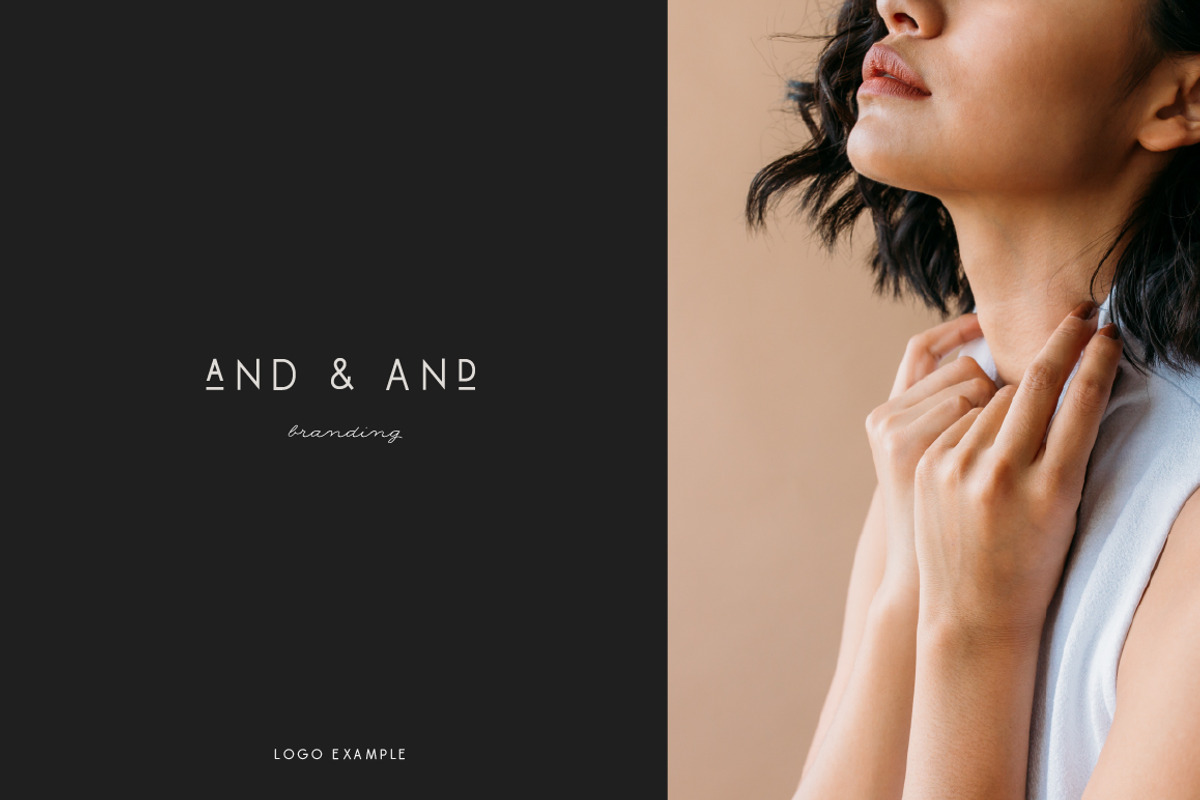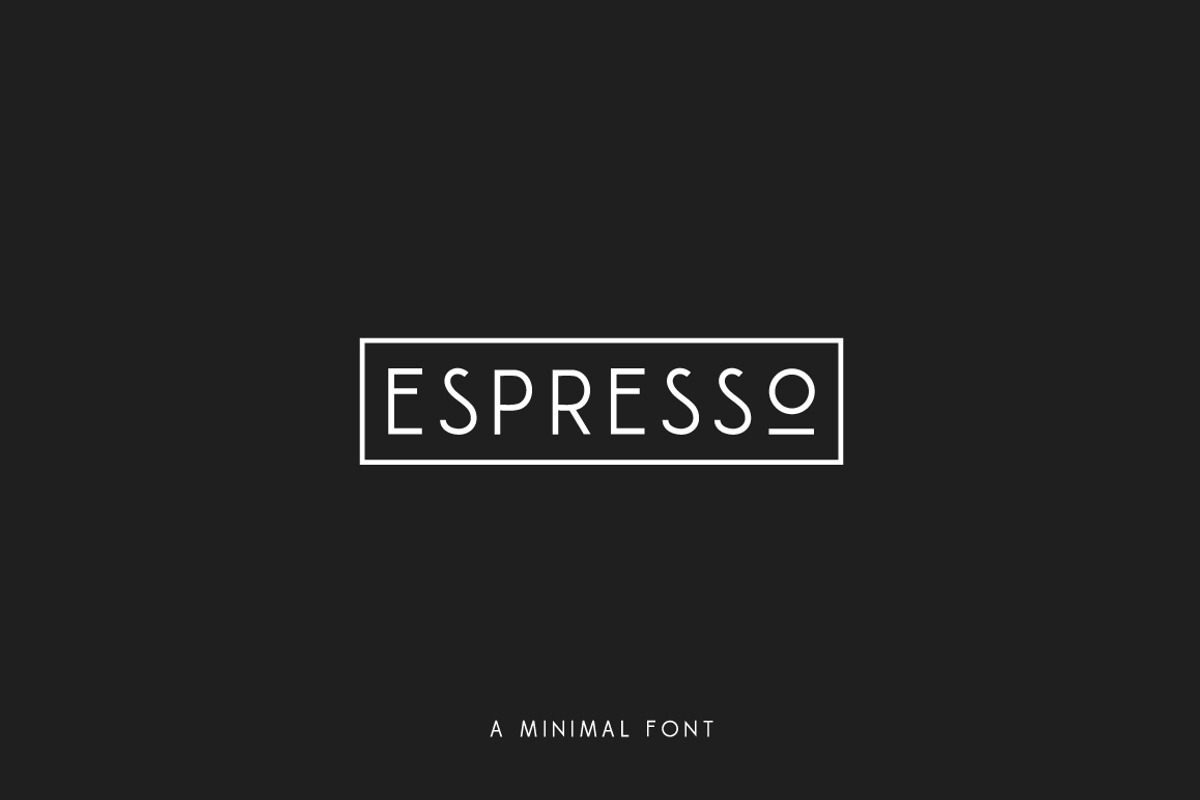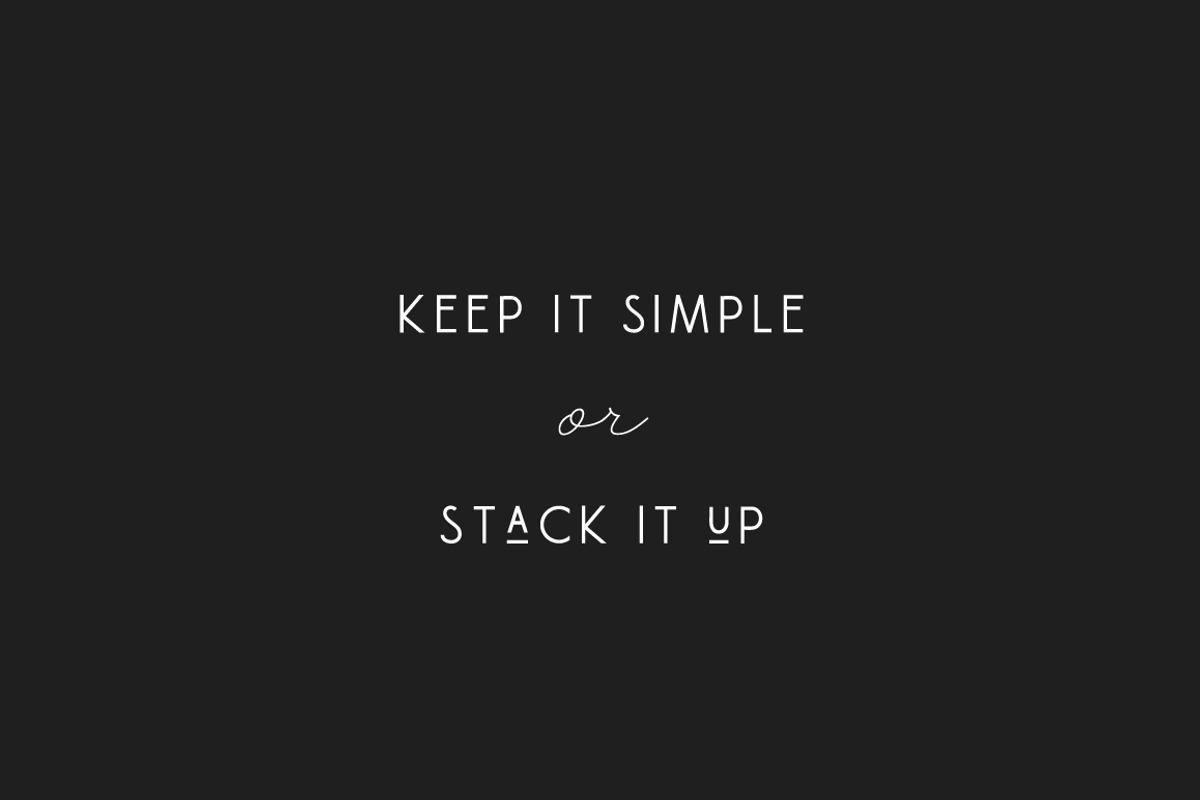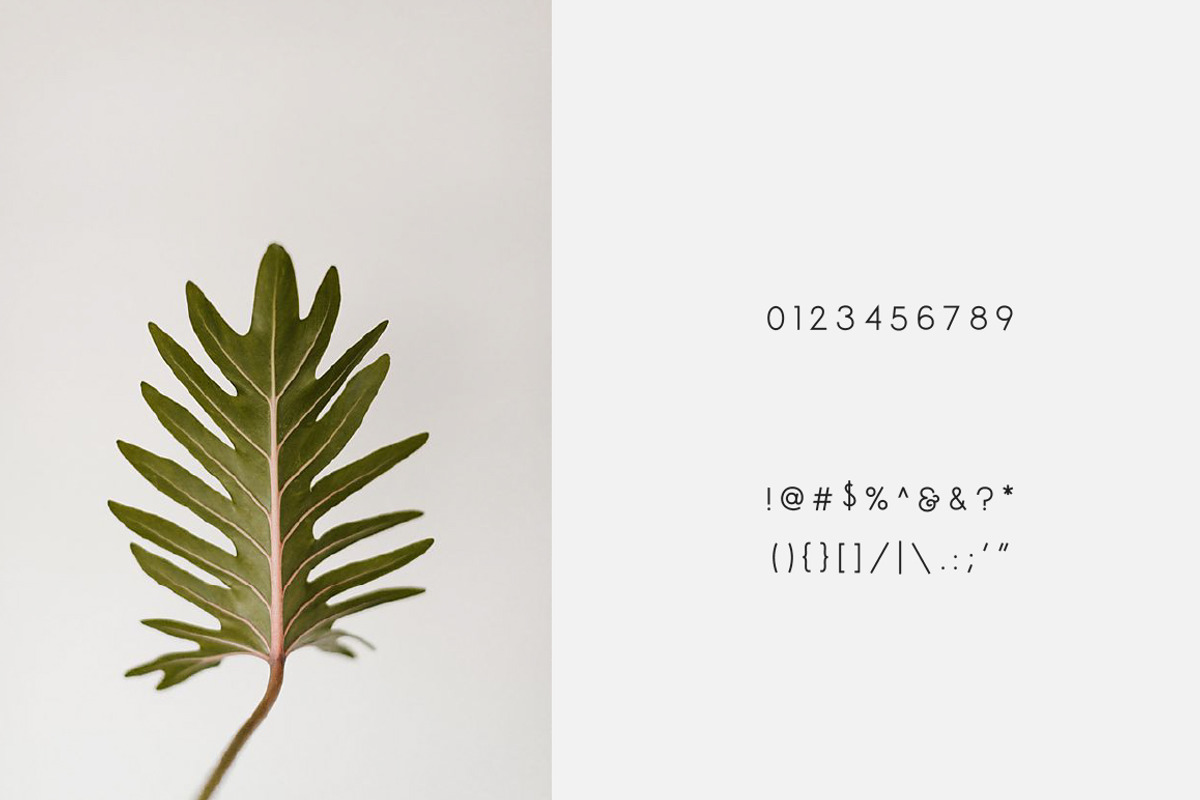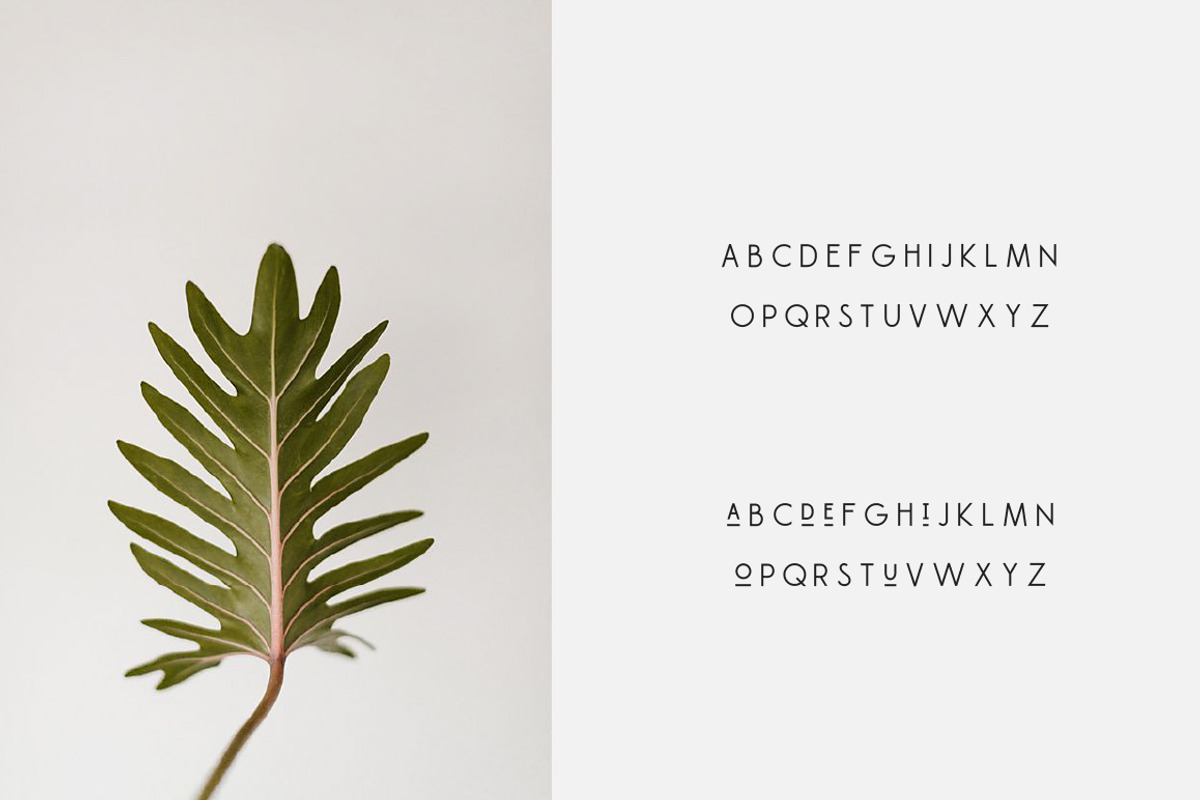
Espresso - Minimal Display Font
A minimal and modern display font with stackable features! You can uniquely stack different parts of this font make it super fun to work with. Or you can type in all caps to keep it sleek and simple. Perfect for all purposes. Pairs well with thins handwritten script fonts.
THIS ENTIRE FONT IS CAPITALIZED
- Uppercase variations
- Lowercase variations
- Special Characters
- Espresso Regular